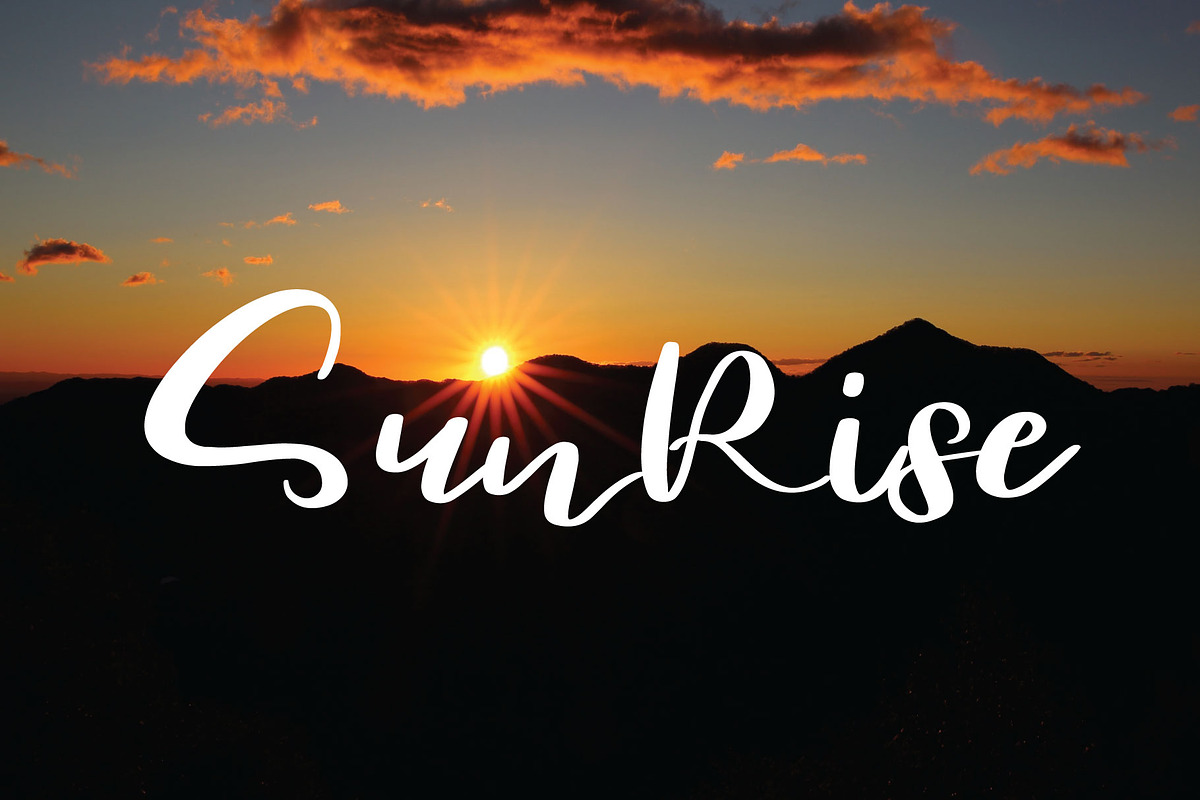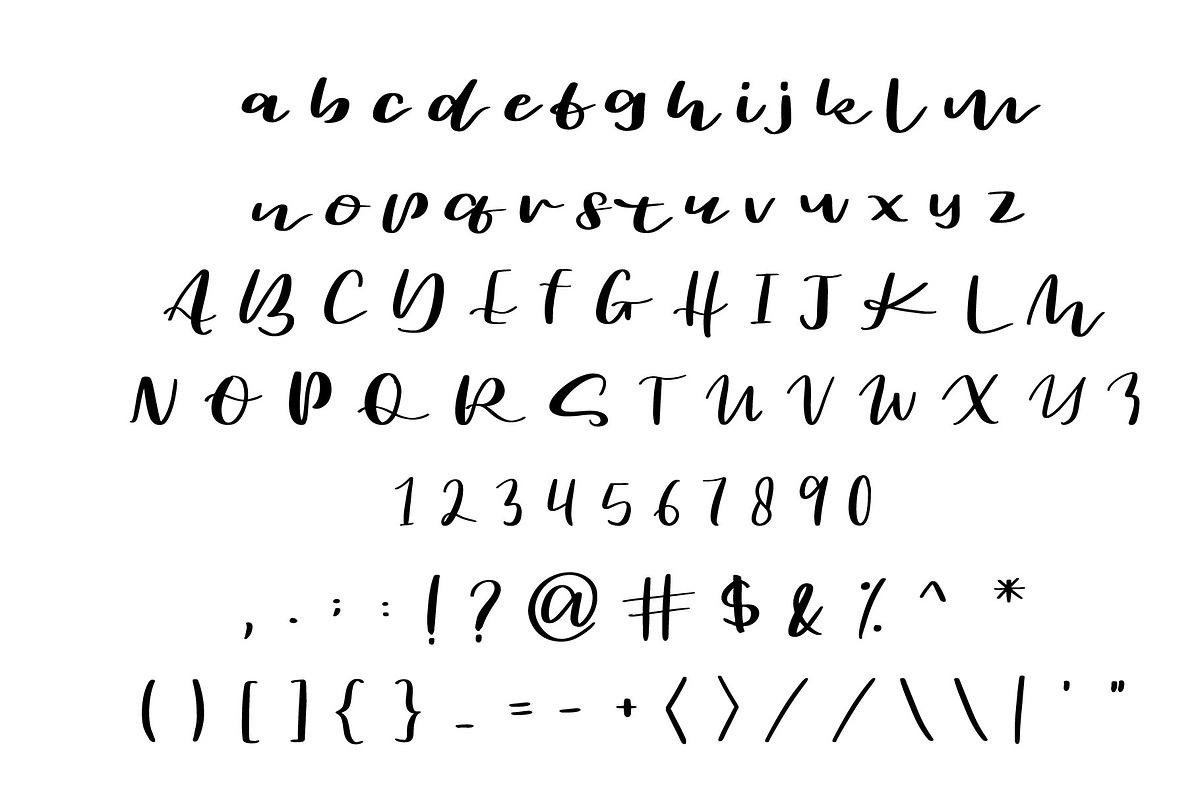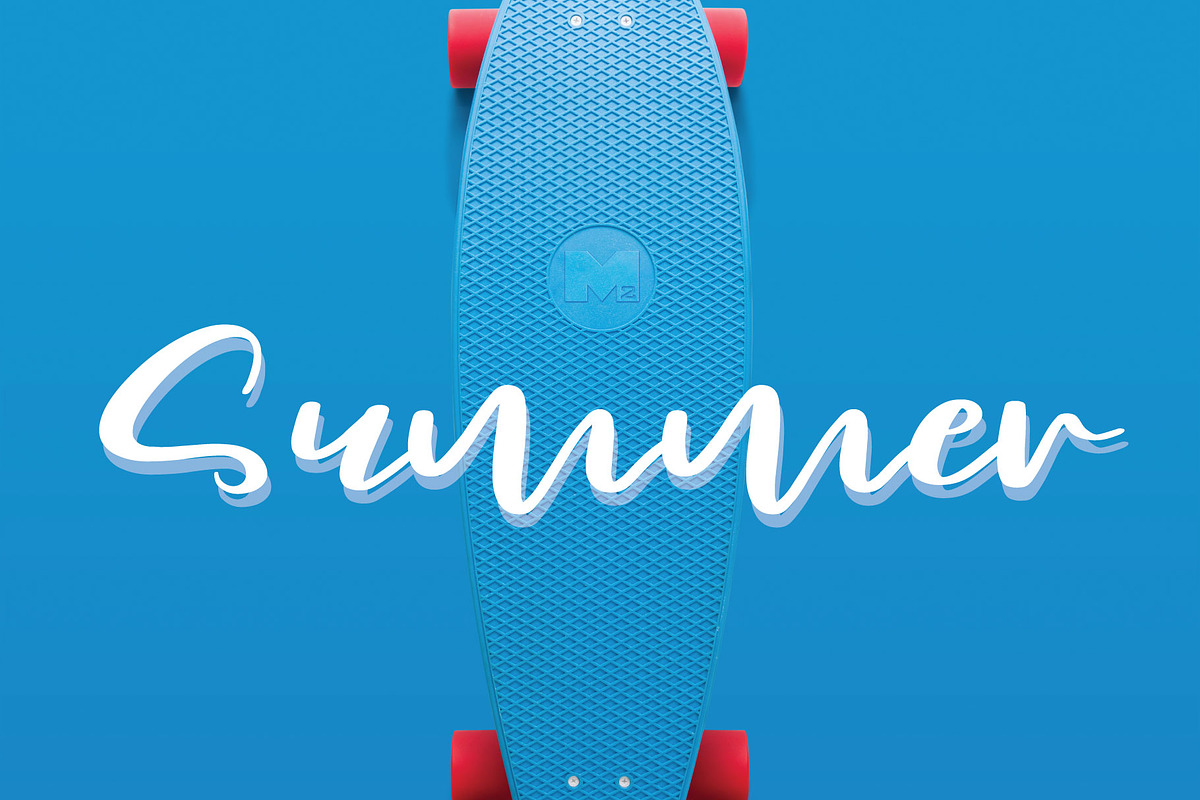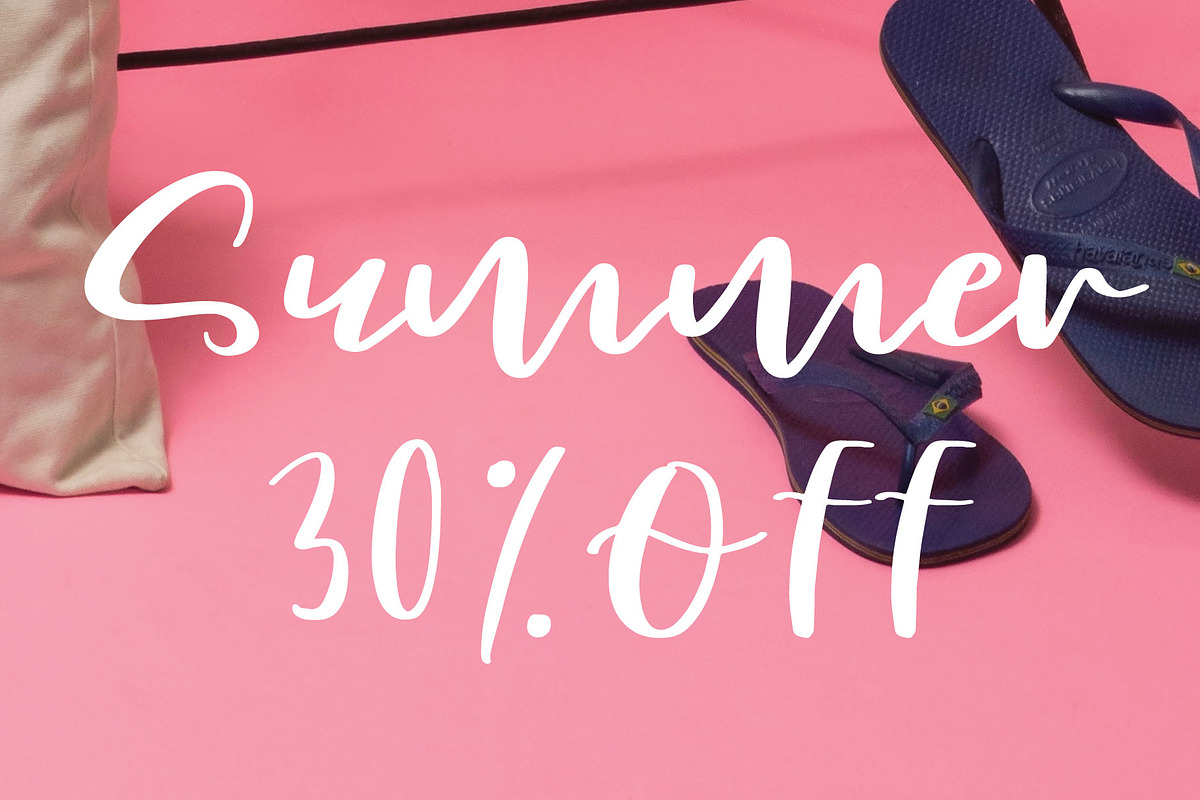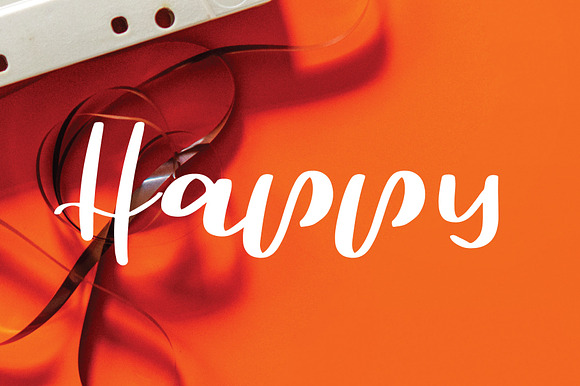
Happy Font
Happy Font by Goodigital13 is a font selected for branding, posters, packaging, typography.
Why Happy Font is worth a look
Happy Font by Mariyana fits naturally into Branding, posters, packaging, typography.